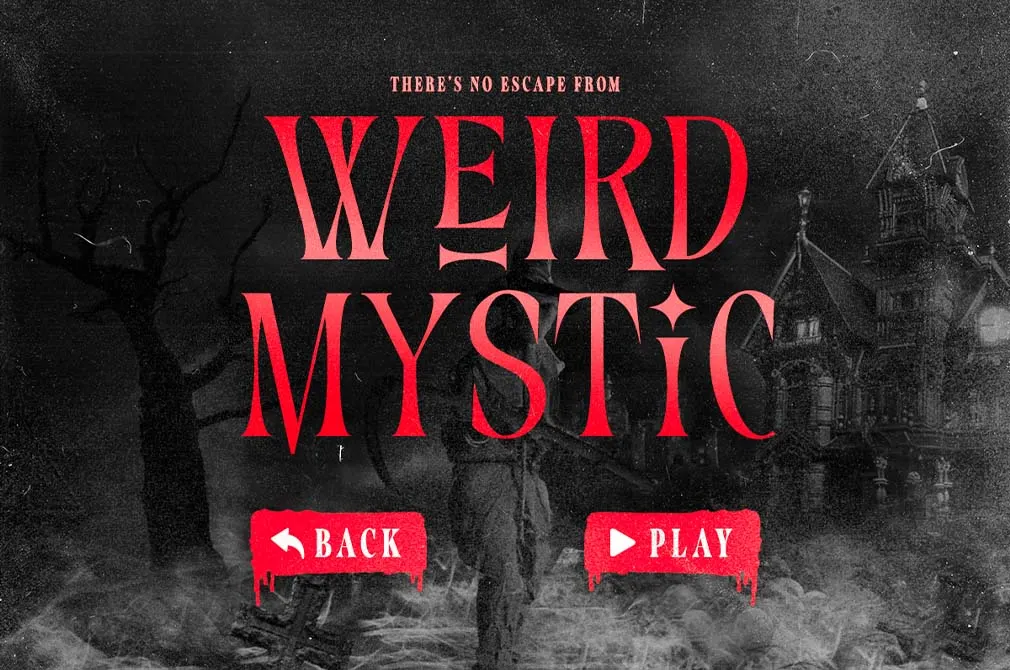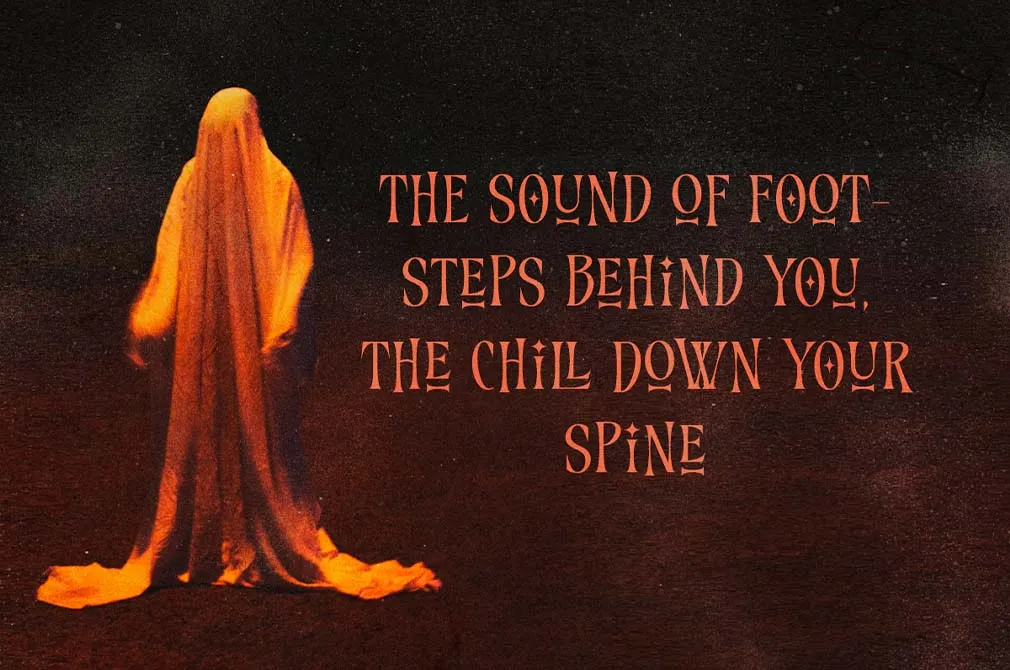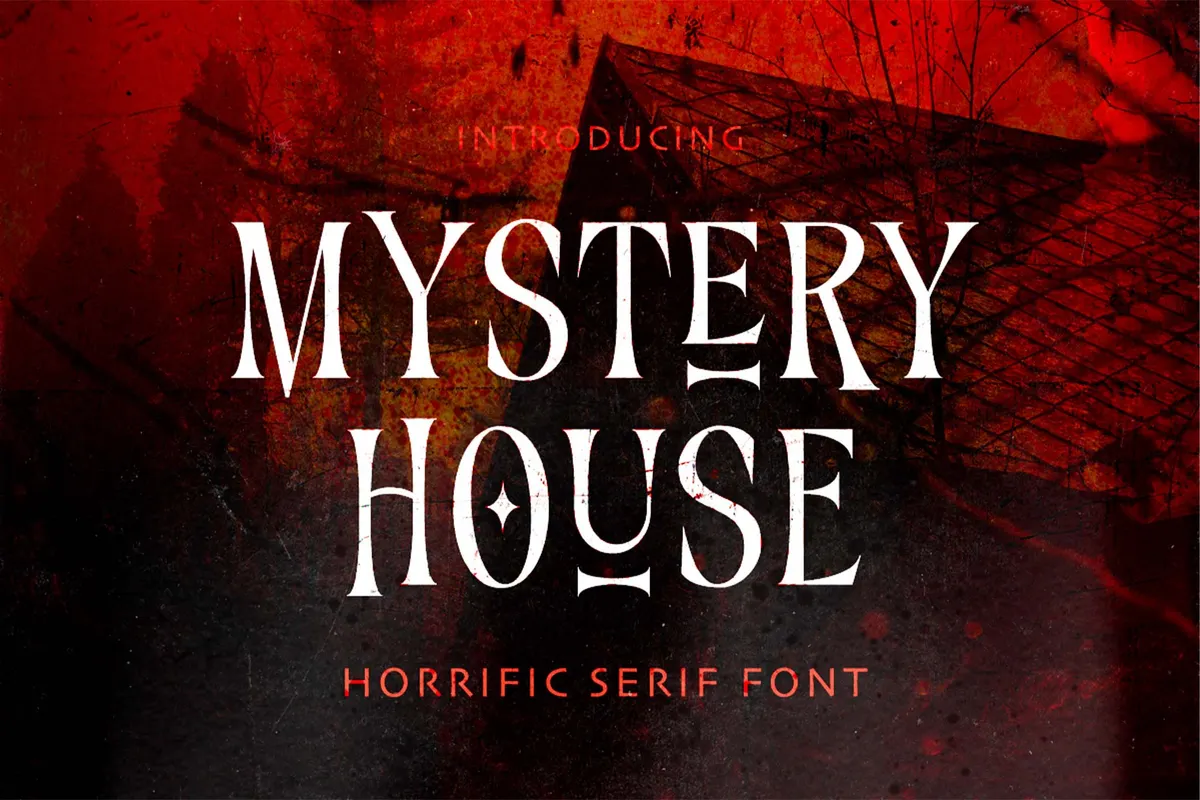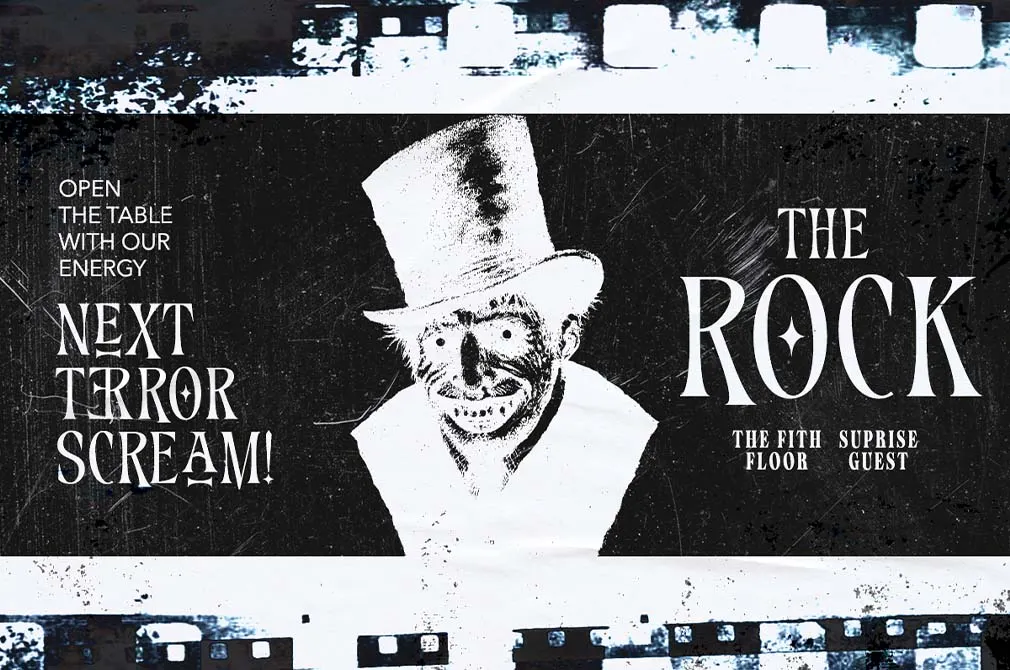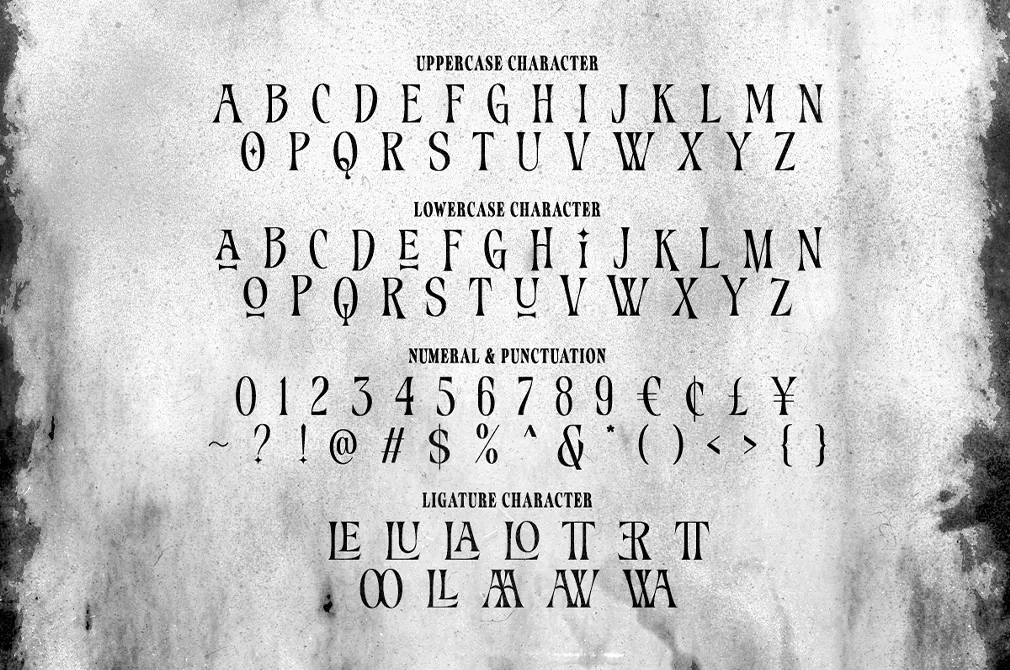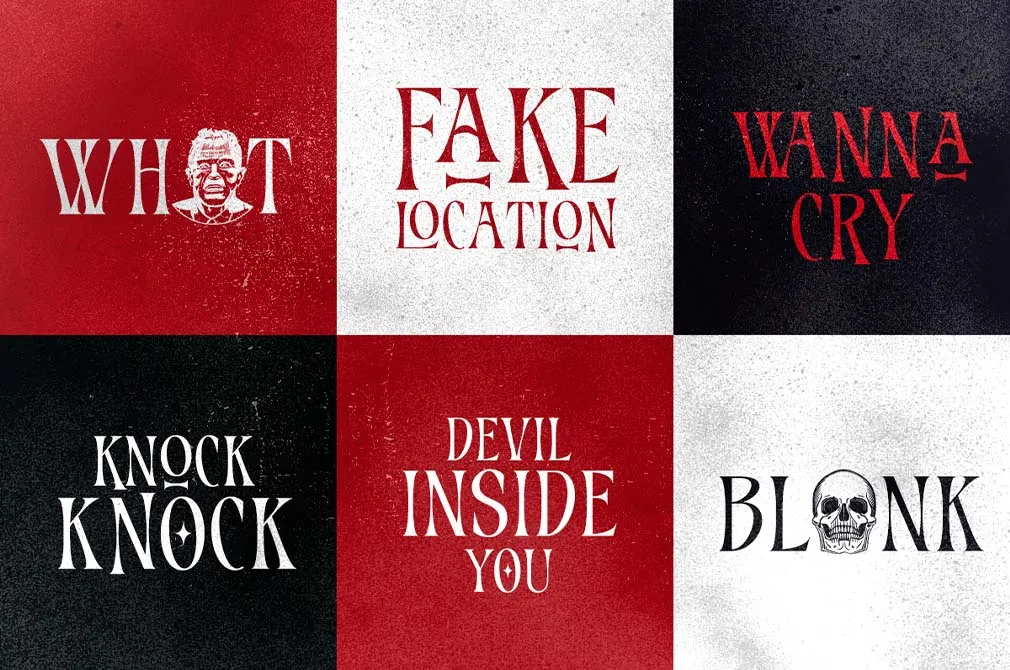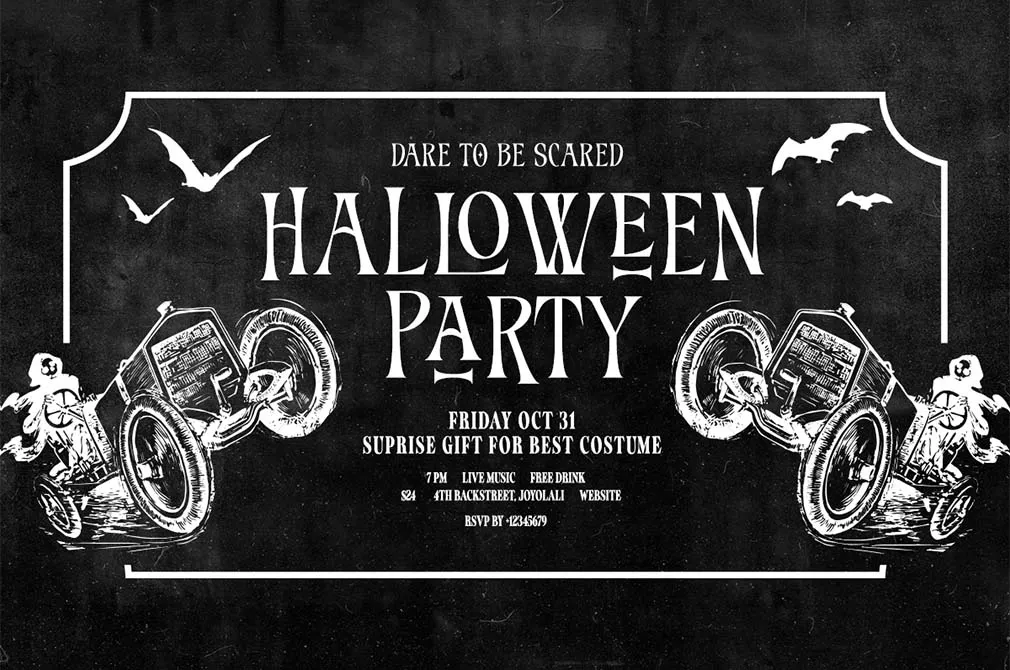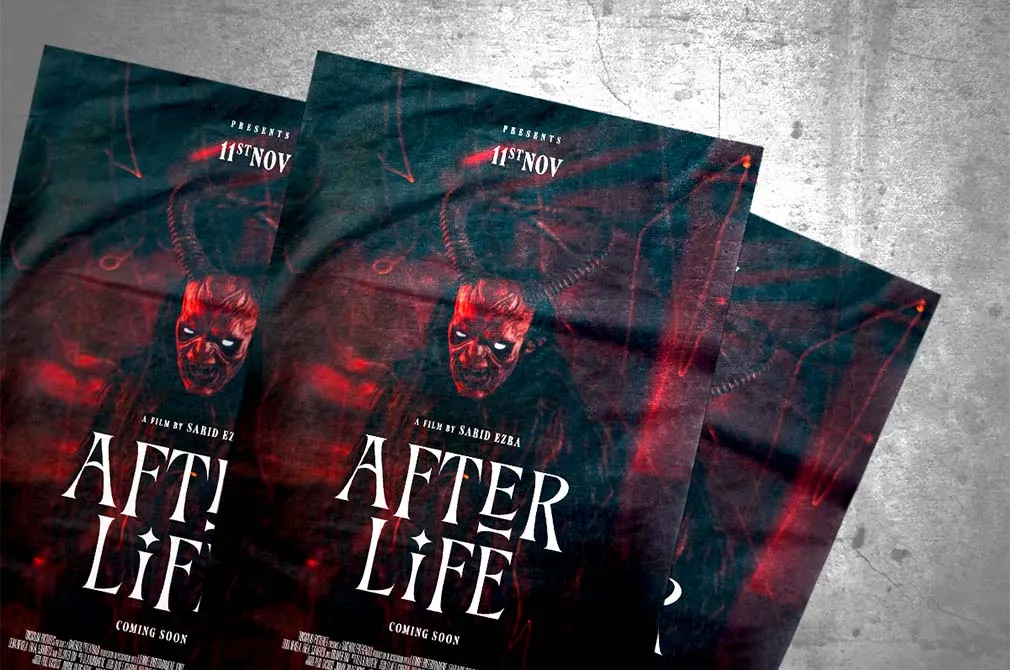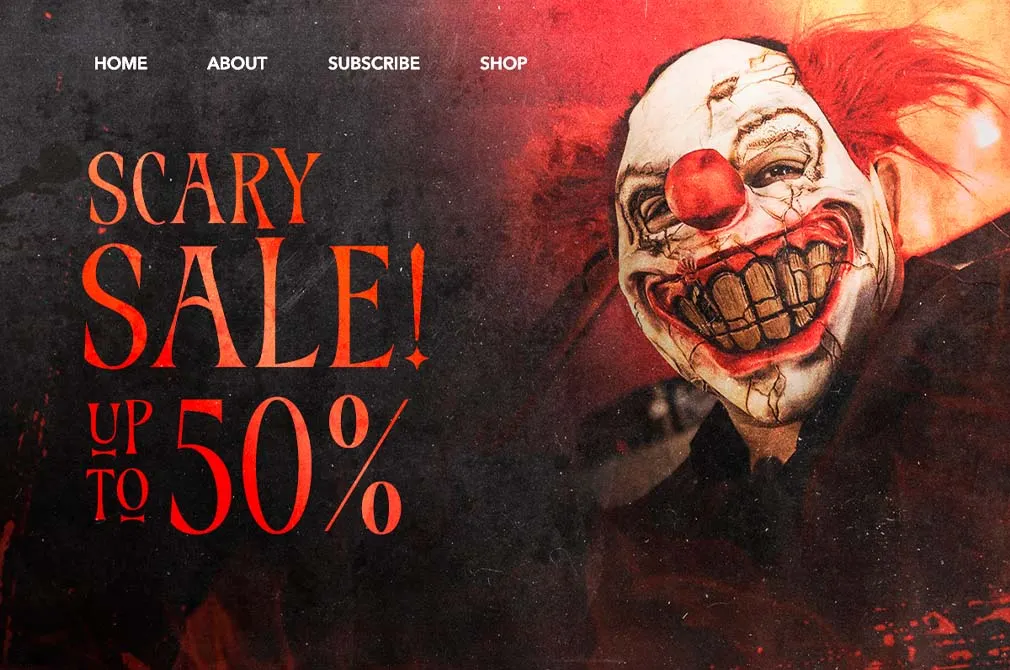
Mystery House — Horrific Serif
Mystery House
Meet the font for your next Halloween party poster project. Its horrific authenticity has no cartoon vibes whatsoever. This type is more on the classy gothic side than on a spooky whimsical one.
The set of glyphs includes uppercase and lowercase letters that can be smoothly mixed and matched in one word, as long as the x-height is pretty much the same as cap-height, while every batch has its own twist. Need even more versatility? This font also features ligatures to achieve the just-right look. You can use Mystery House for a wide variety of occasions such as album or book covers, music band flyers, event posters, quotes, and many more. And do not limit yourself to English only, because this typeface provides multilingual support.